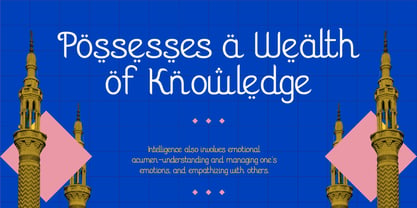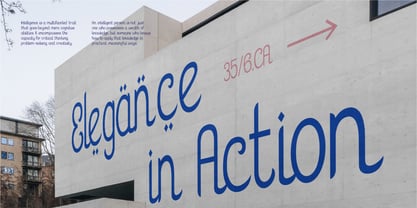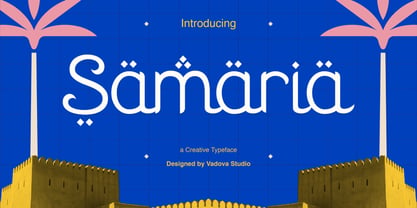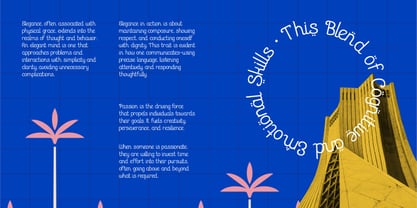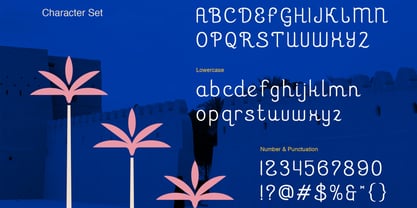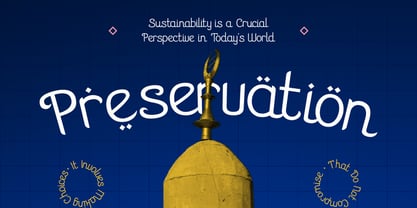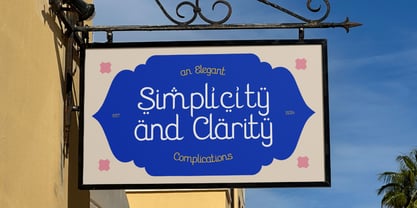
Samaria
Sämärïä is a quirky yet elegant display typeface that fuses nostalgic charm with modern geometric precision. Inspired by retro signage, vintage editorial headlines, and expressive hand-drawn typography, this font balances playful energy with refined structure. Each character in Sämärïä has been carefully crafted to feel unique yet harmonious, featuring soft curves, sharp terminals, and unexpected quirks that draw the eye while remaining readable and clean. Its design walks the line between whimsy and sophistication, making it versatile for a wide range of creative applications. The letterforms are spaced generously for strong legibility in headlines and large-format compositions, while its rhythmic flow and delicate detailing give it charm even in smaller typographic settings. Whether you're working on branding for a boutique business, a gallery poster, product packaging, editorial layouts, or playful web visuals, Sämärïä adds distinctive personality with a touch of elegance.